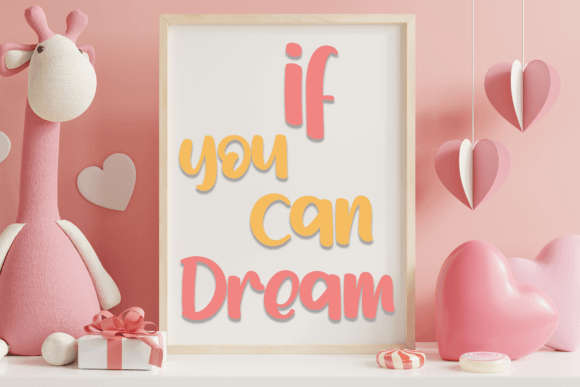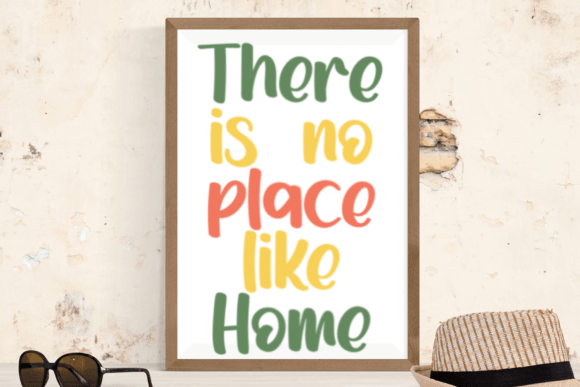
Unleash Your Creativity with Hello Bestie Font
Do you remember that moment when you stumbled upon the perfect font for your latest design project? You felt like a kid in a candy store, excitedly scrolling through font libraries and imagining the endless possibilities? For many designers, this is a moment of pure bliss. And, we’re excited to share with you a font that’s sure to spark that creative spark – the beautiful Hello Bestie Font.
This stunning display font is a perfect addition to any designer’s library, especially for those working on magazines and crafts. Its unique design and playful feel make it an ideal choice for creating spectacular designs that capture the reader’s attention. Whether you’re a seasoned designer or just starting out, the Hello Bestie Font is a valuable asset that will help you take your designs to the next level.
Hello Bestie Font Key Features
- Font Style: A playful, cursive script font designed for informal and friendly communication.
- Unique Characteristics: Features a unique, hand-drawn design with subtle flourishes and irregularities, giving it a personal touch.
Hello Bestie Font Review
I recently had the chance to work with the Hello Bestie Font, and I’m excited to share my honest thoughts. Overall, I found it to be a fun and playful typeface that’s perfect for casual designs and creative projects.
- Unique and quirky character shapes make it stand out from more traditional fonts.
- It’s great for highlighting headings and titles, adding a touch of whimsy to your design.
- The font is highly legible, even at smaller sizes, which is a must for any font.
- It’s a great choice for social media graphics, blog posts, and other online content.
- The font may not be suitable for formal or professional designs, as it can come across as too casual.
- It may not be as versatile as other fonts, as its quirky nature can make it challenging to pair with other typefaces.
Overall, I think the Hello Bestie Font is a great addition to any designer’s toolkit. While it may have some limitations, its unique character and playful nature make it a great choice for creative projects and casual designs.
Tips for Getting the Most Out of the Hello Bestie Font
Use the Hello Bestie Font to add a touch of whimsy and personality to your designs. Pair it with bold colors and playful graphics for a fun and youthful aesthetic.
The Hello Bestie Font is perfect for:
- Social media graphics and posts
- Invitations and party decorations
- Personalized
Alternatives to Hello Bestie Font
Lobster Font is a playful, cursive script font perfect for adding a touch of whimsy to designs. It’s ideal for use in titles, headings, and other areas where you want to draw attention. Lobster Font has a similar fun and casual feel to Hello Bestie Font, but with a more elegant and sophisticated look.
Great Vibes Font is a beautiful, modern script font that’s perfect for creating a sense of elegance and sophistication. It’s ideal for use in titles, headings, and body text where you want to convey a sense of luxury and refinement. While Hello Bestie Font is more playful and casual, Great Vibes Font is more refined and sophisticated.
Pacifico Font is a beautiful, elegant script font that’s perfect for creating a sense of relaxation and calm. It’s ideal for use in titles, headings, and body text where you want to convey a sense of serenity and tranquility. Pacifico Font has a similar relaxed and casual feel to Hello Bestie Font, but with a more refined and polished look.